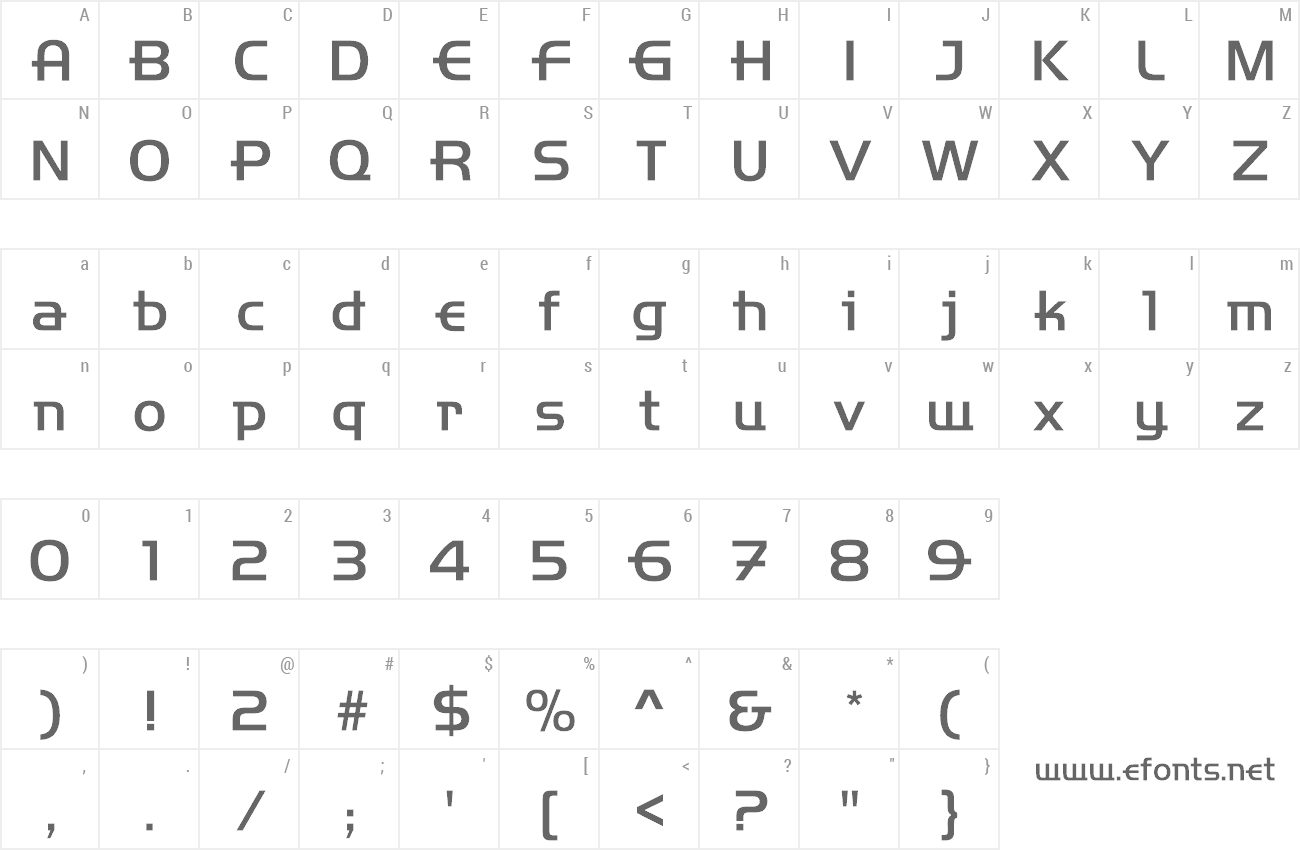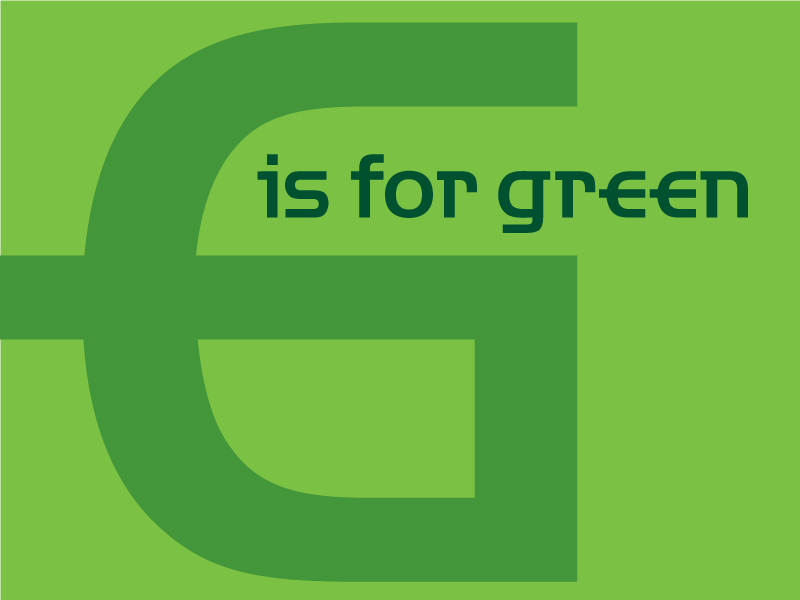
| Font name: | Handelbar |
| Author: | FineFonts |
| Note by FineFonts | |
| This font is based on Handel Gothic Medium. Some characters were totally redrawn, others have added serifs or handles. The cap G is my favorite character. |